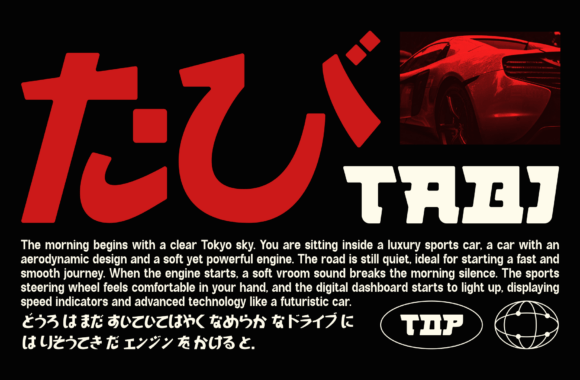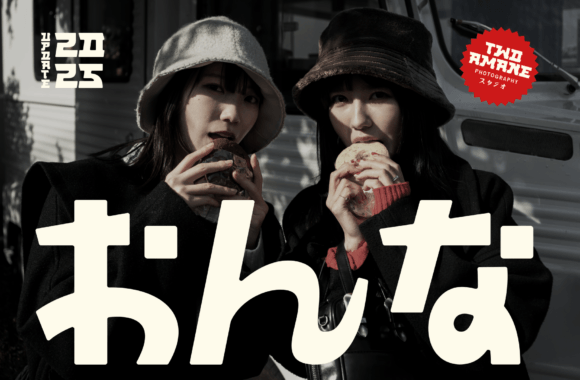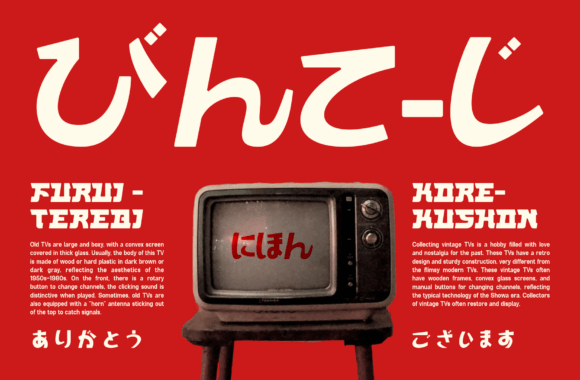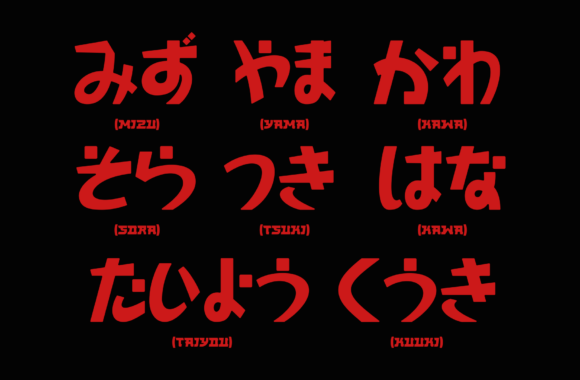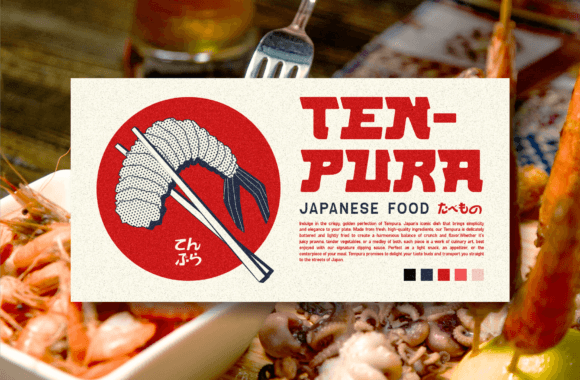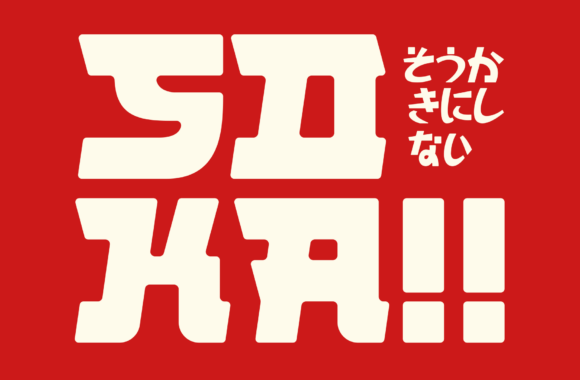
Introduction to Kyouka Font
Introducing Kyouka is a beautifully crafted Decorative Japanese Block-style font that combines traditional aesthetics with a modern touch.
Each character is meticulously designed with bold, geometric strokes, creating a striking presence ideal for impactful designs What sets Kyouka apart is its subtle rounded edges at the ends of each stroke, adding a soft and refined finish to its otherwise bold appearance.
Key Features of Kyouka Font